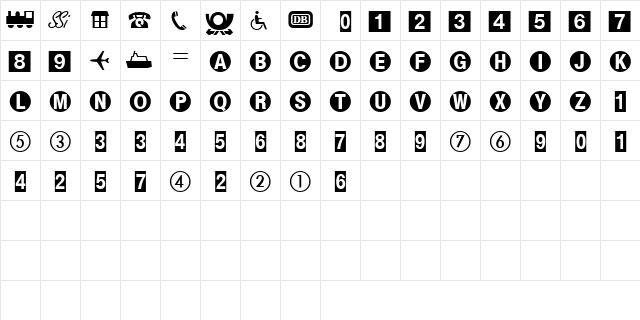
FormatPiOneSSK Regular
Design Context for FormatPiOneSSK Typeface
FormatPiOneSSK offers clean, dependable letterforms without strong stylistic allegiance, making it a practical choice for designers who need flexibility.